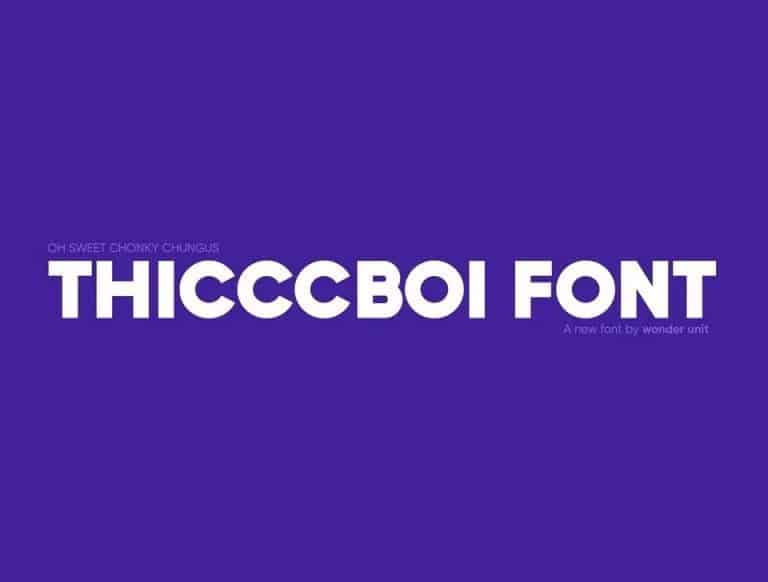
Thicccboi Sans Font Family
Thicccboi Font is a modern condensed font that has simple, geometric characters with soften round edges and a modern look. Thicccboi has versatile, bold yet playful design allowing you to be creative with your projects.
Thicccboi it’s great to be used in a large variety of applications, from digital and print designs to website headers, posters, flyers and much more, this font is the best choice in creating attention-grabbing designs.